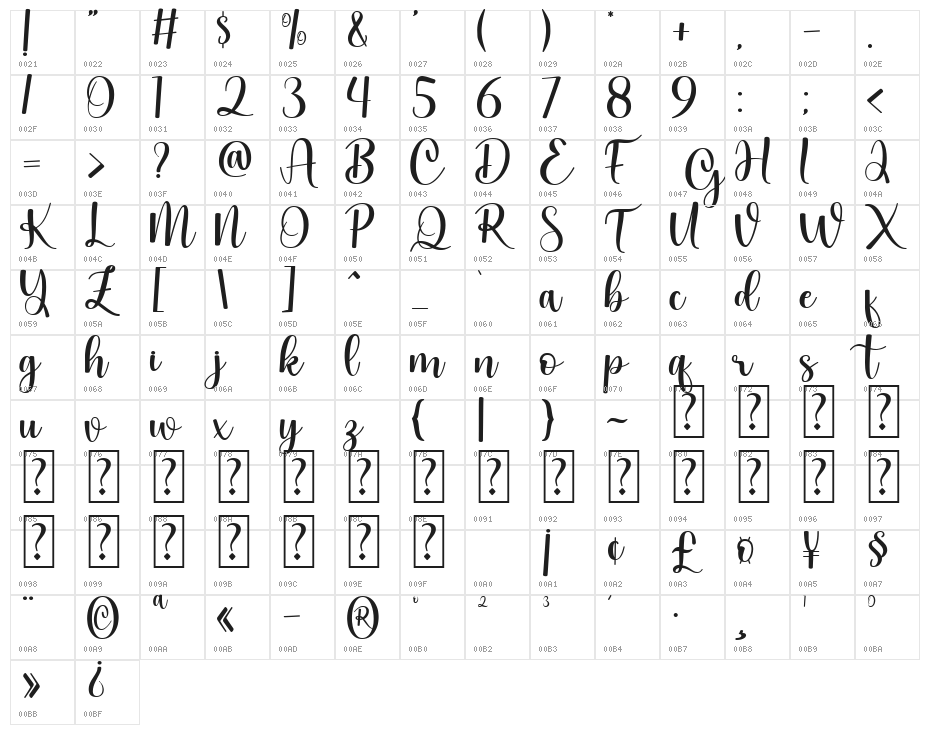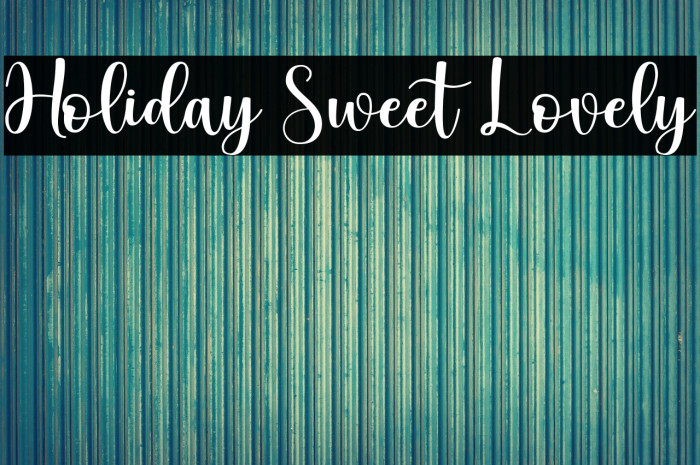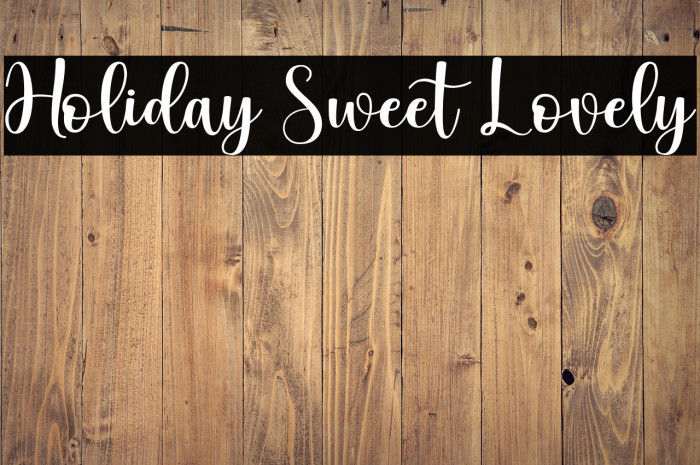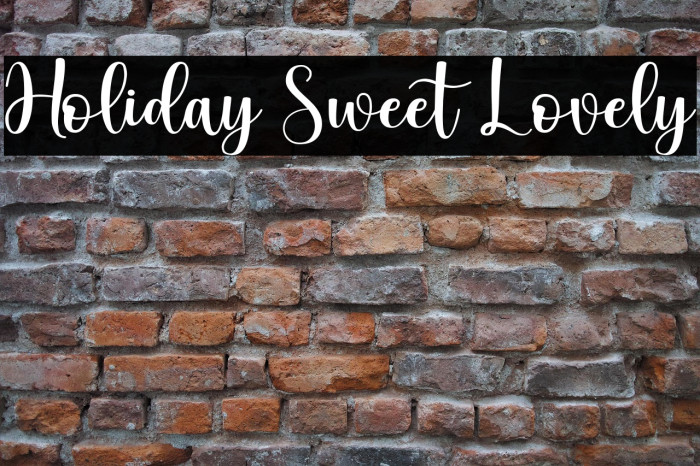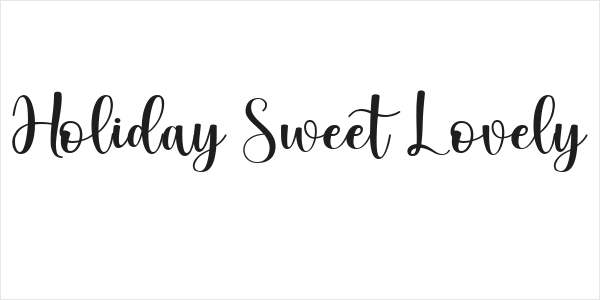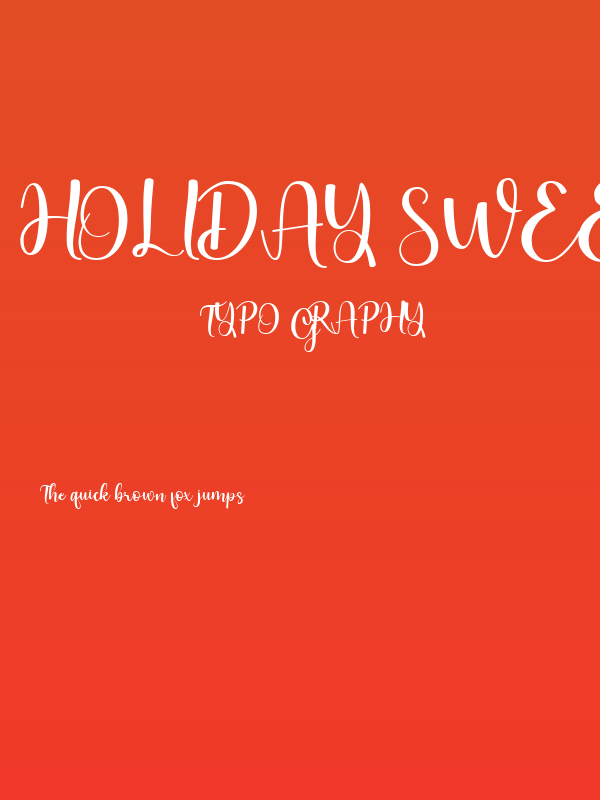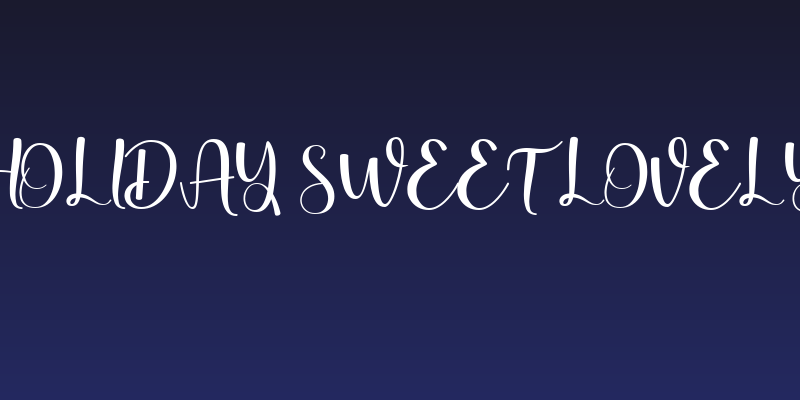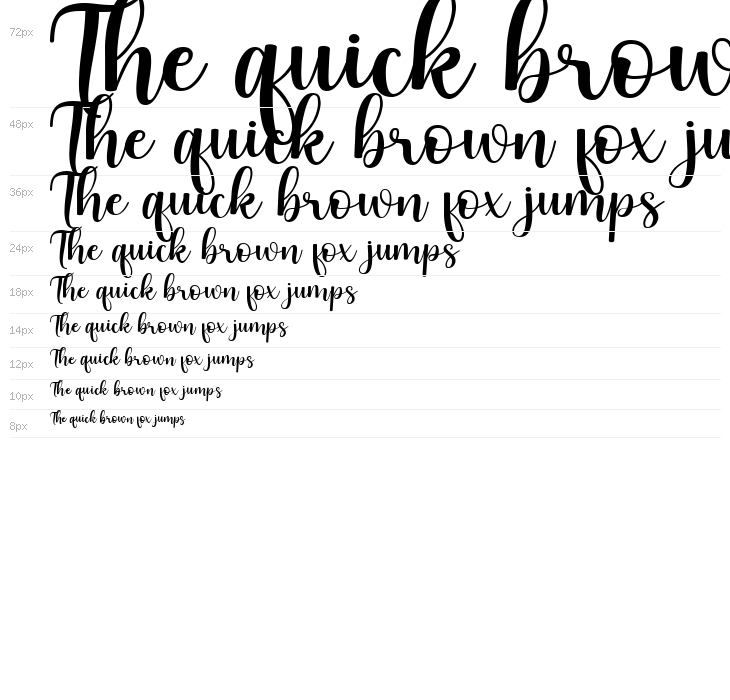
Holiday Sweet Lovely Font
Holiday Sweet Lovely Description
This font exudes a playful and elegant charm, characterized by its flowing, cursive script style. The letters are interconnected with smooth, sweeping strokes that give it a handwritten feel. The uppercase letters are bold and expressive, often featuring loops and flourishes that add a decorative touch. The lowercase letters maintain a consistent style, with rounded forms and a slight slant that enhances the script's fluidity. Numbers and special characters are designed to match the overall aesthetic, ensuring a cohesive look across all elements. This font is perfect for adding a touch of sophistication and warmth to any design project.
| Proposed Projects | Ideal for wedding invitations, greeting cards, branding, and social media graphics. |